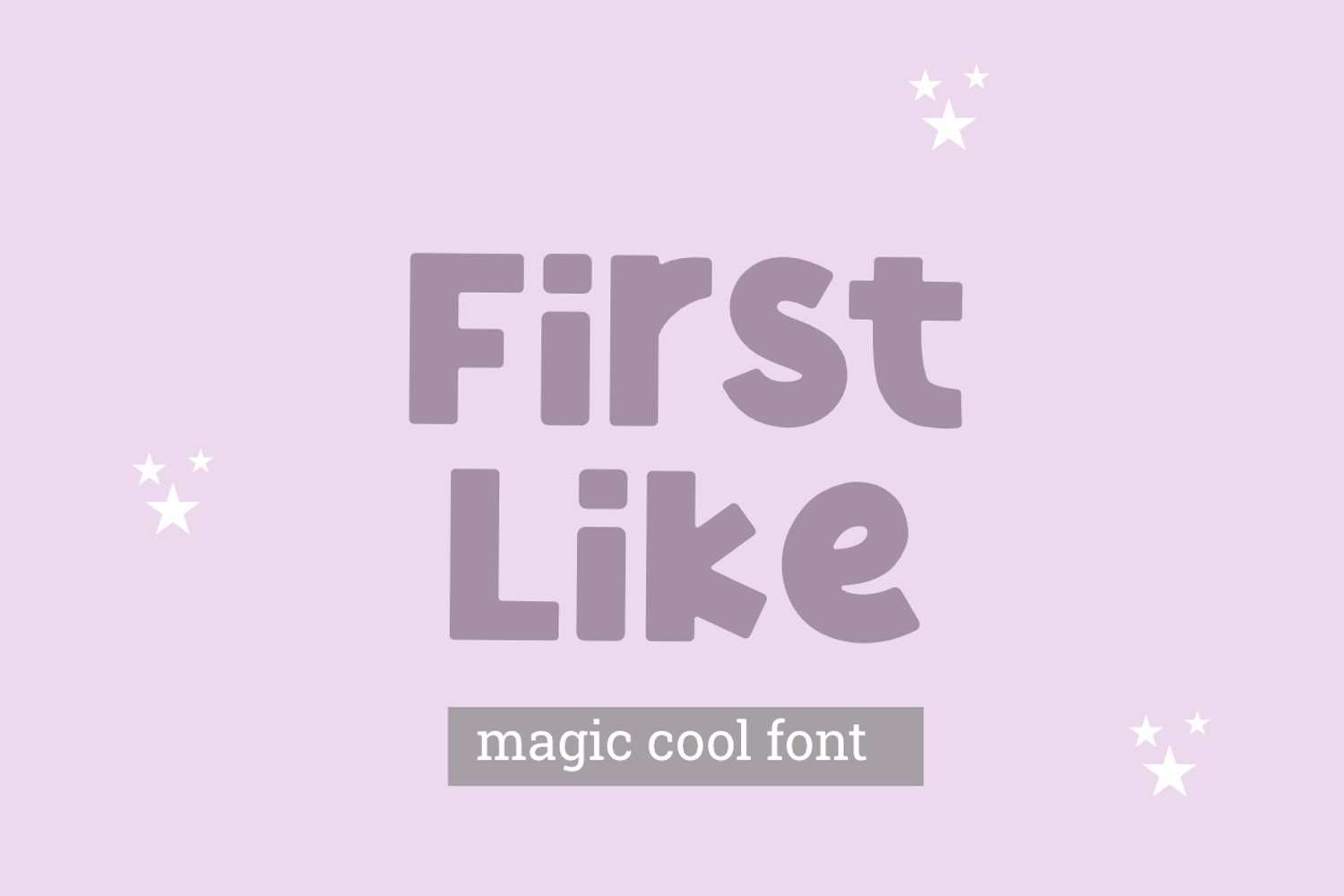
First Like is a bold bubbly font.
This font is perfect for cricut projects, logos, shirts, svg files, planners, stickers, quotes, social media and more!